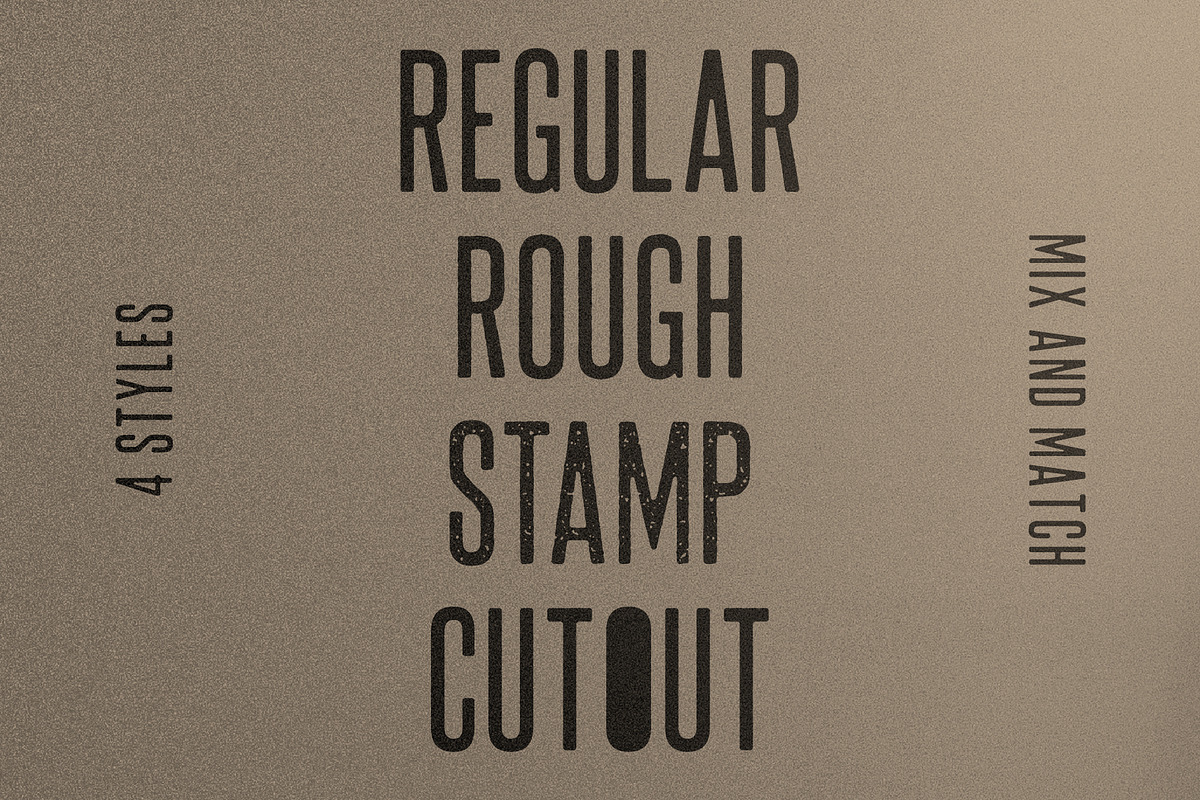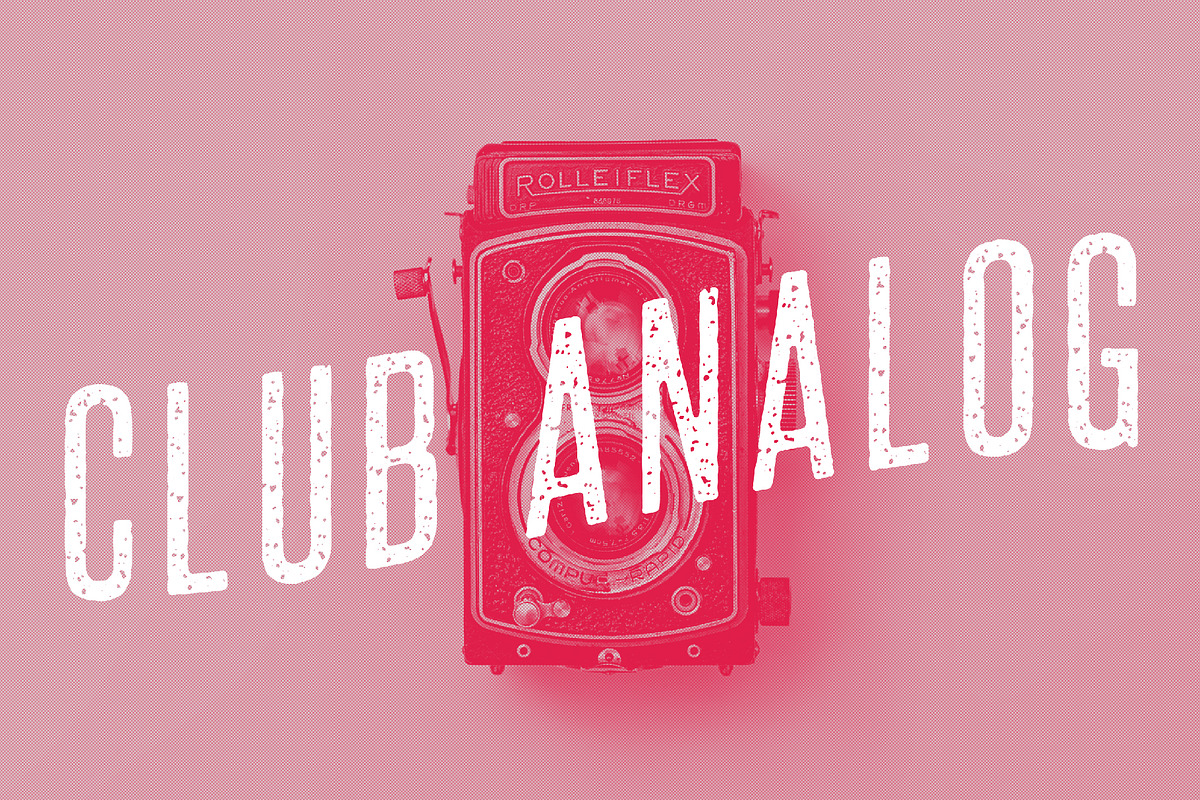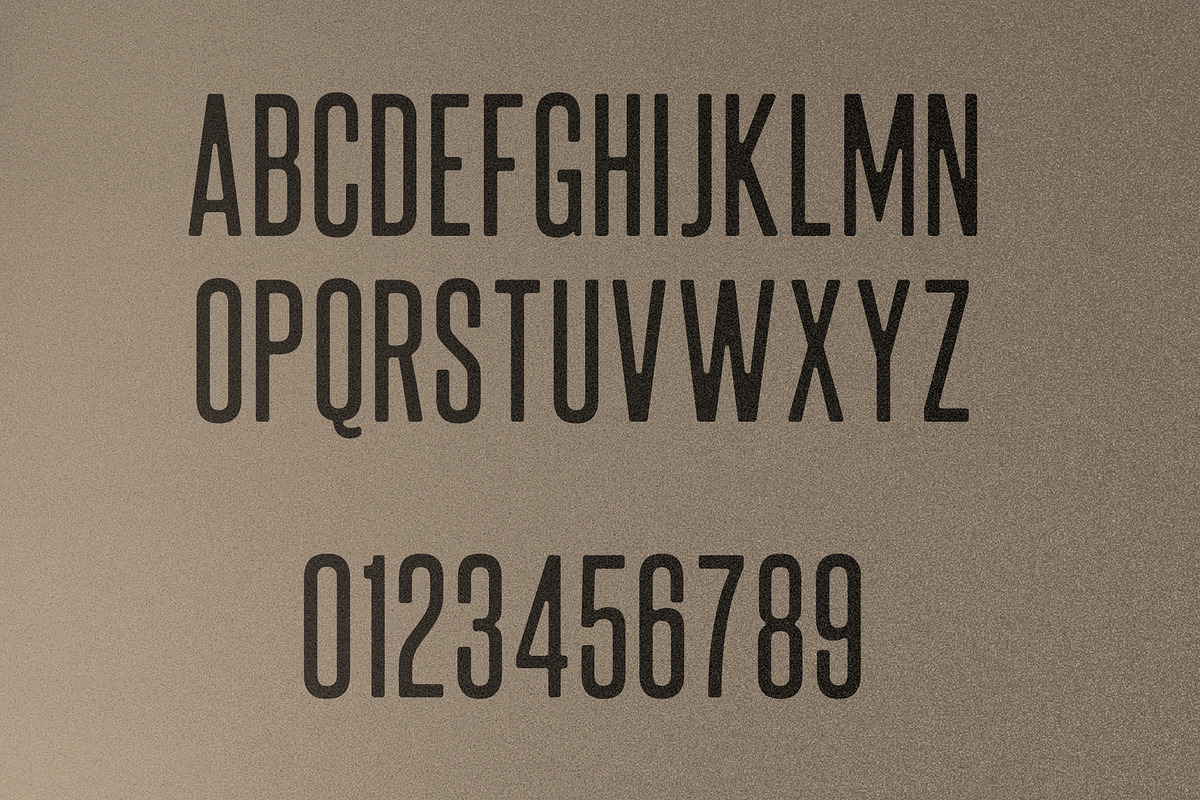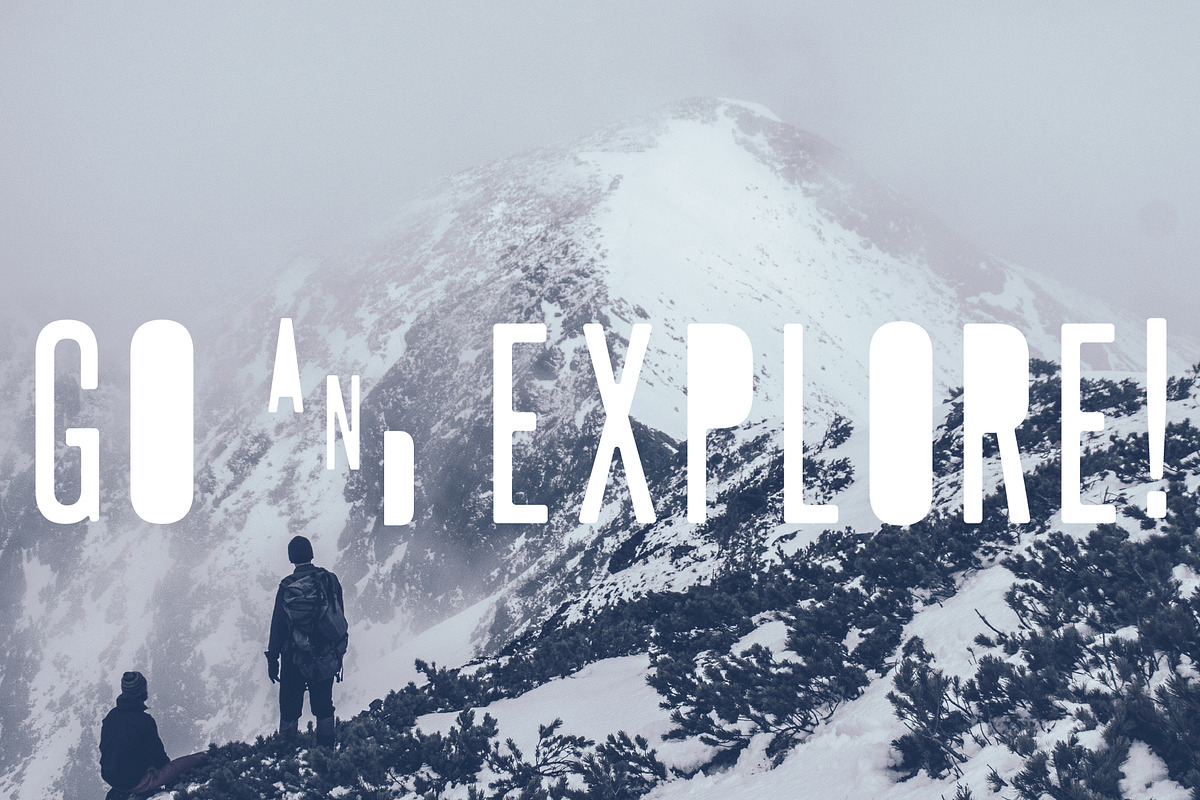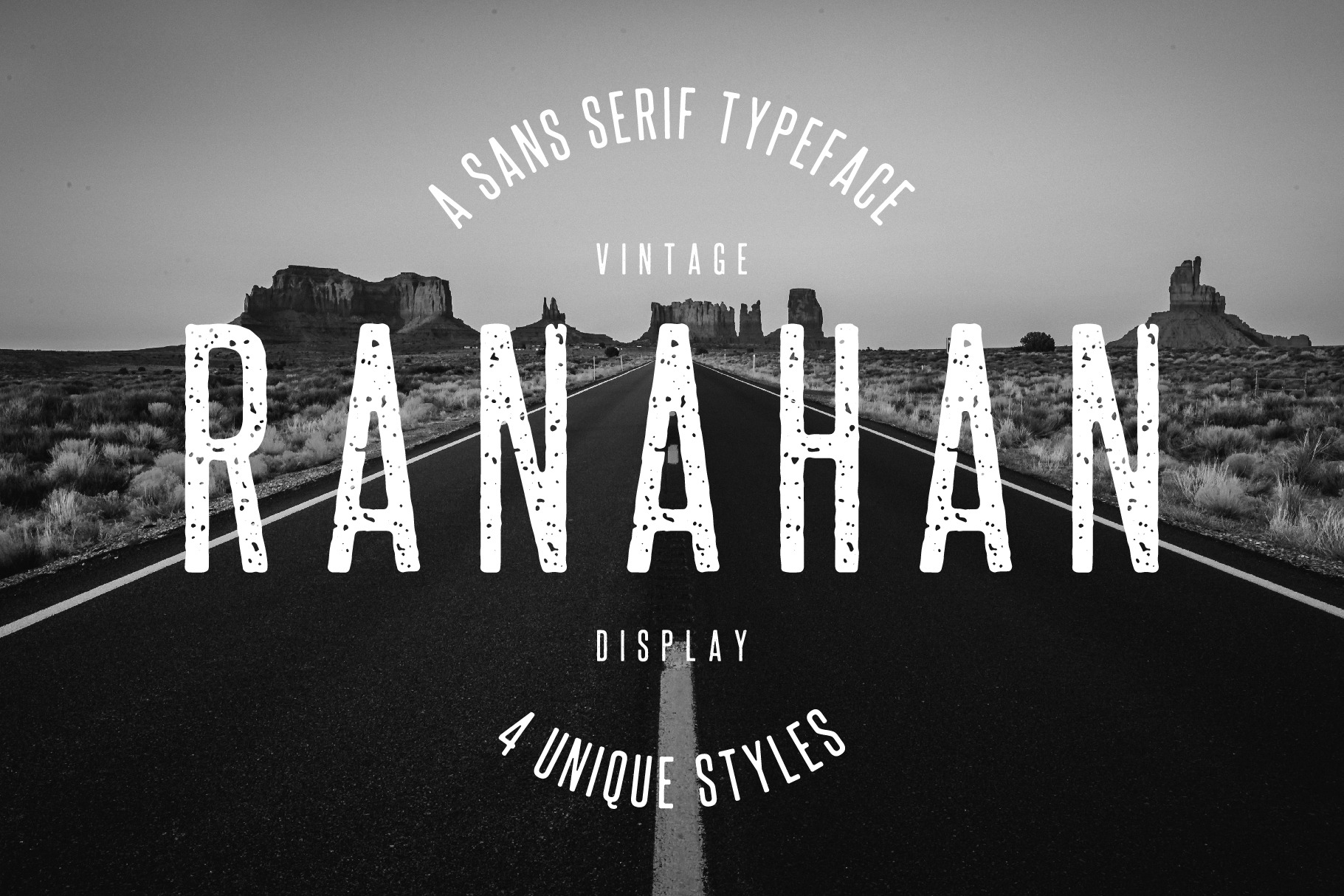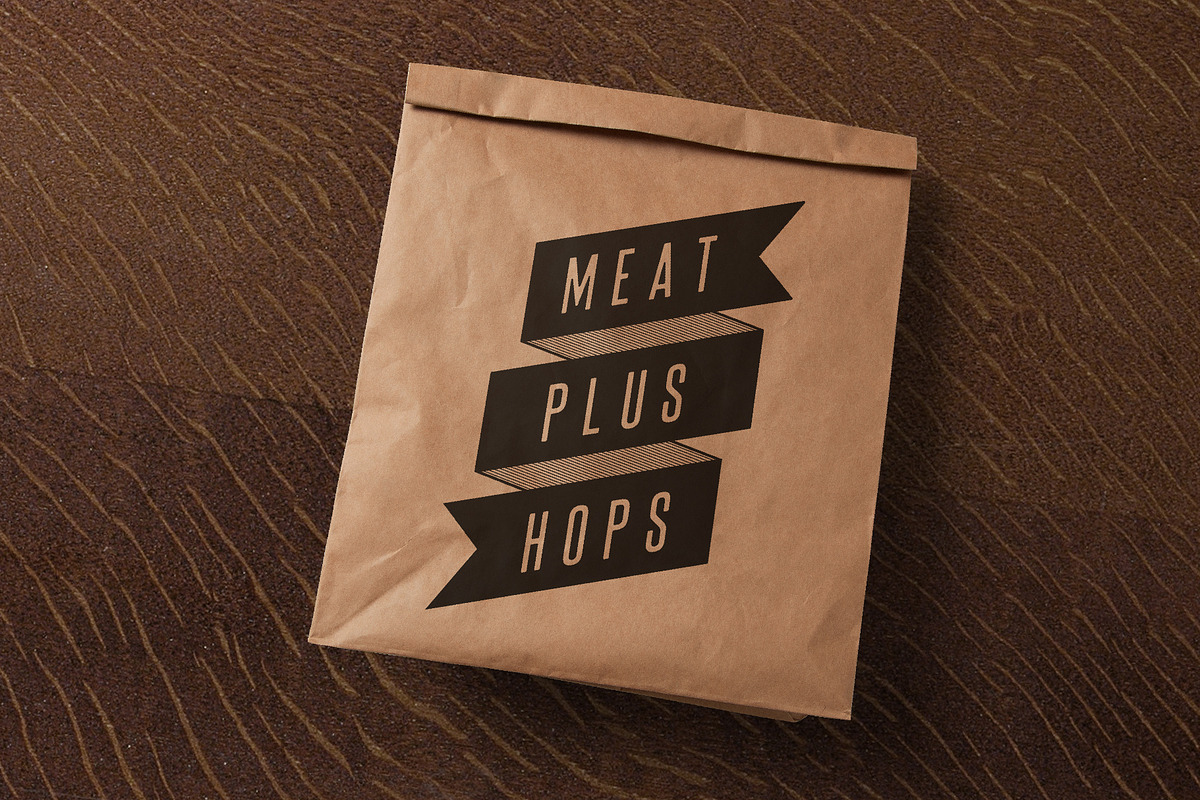
Ranahan – Vintage Sans Serif Font
RANAHAN – A VINTAGE SANS SERIF TYPEFACE WITH 4 STYLES
Ranahan typeface is a modern font with a series of styles that help give it a vintage and retro look and emulate the effect of being printed.
Ranahan comes in 4 font styles, Ranahan Regular, Ranahan Rough, Ranahan Stamp, and Ranahan Cutout.
The font is perfect for graphic designs to use on branding materials, t-shirts, print, business cards, logos, posters, advertising, packaging and quotes.
- All caps